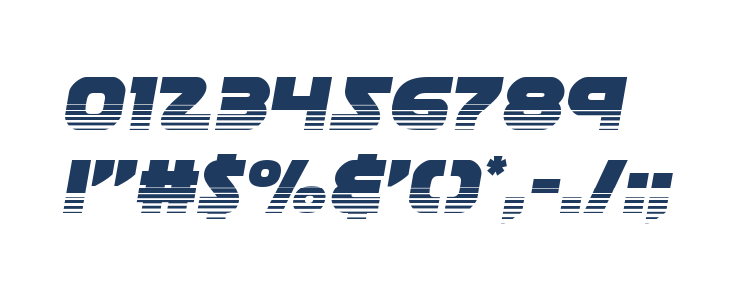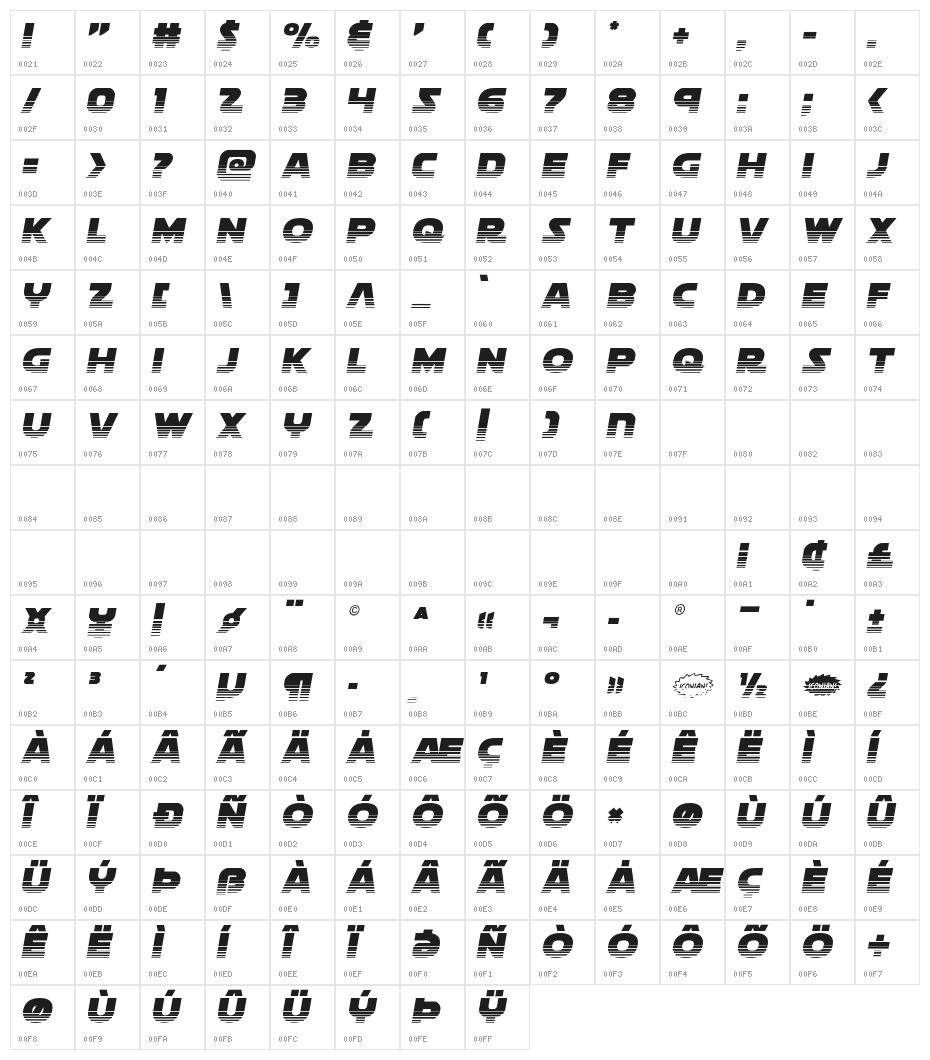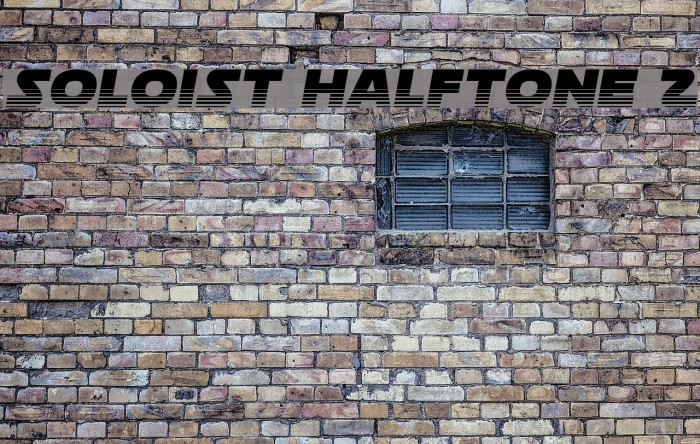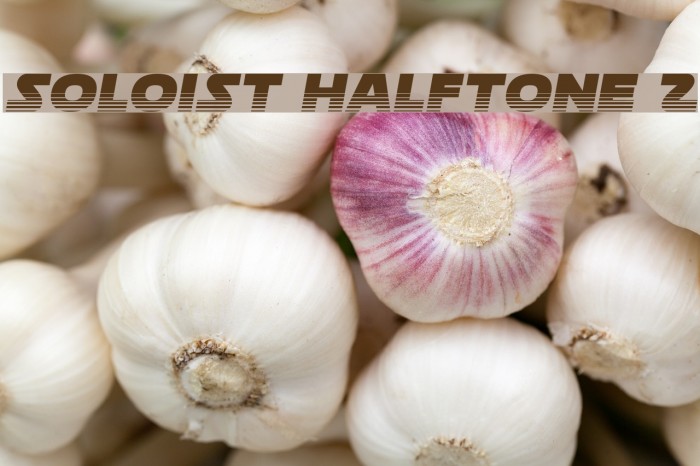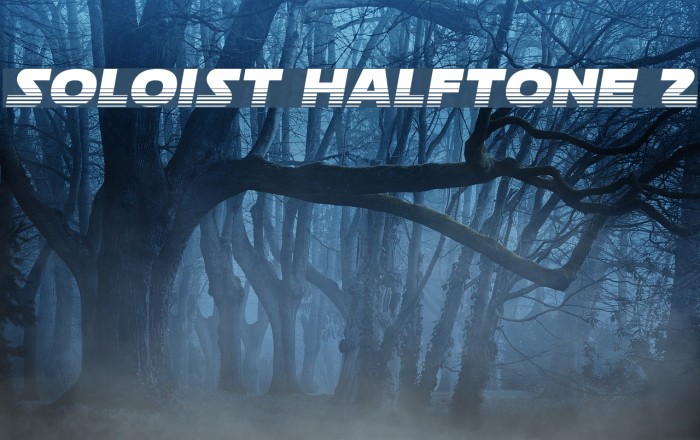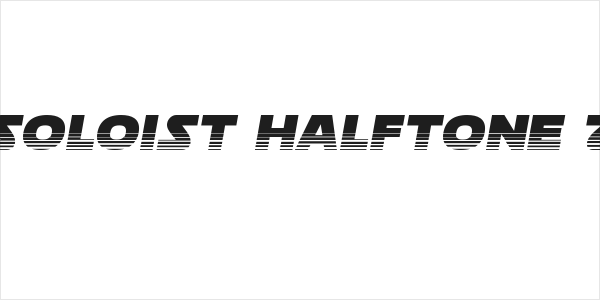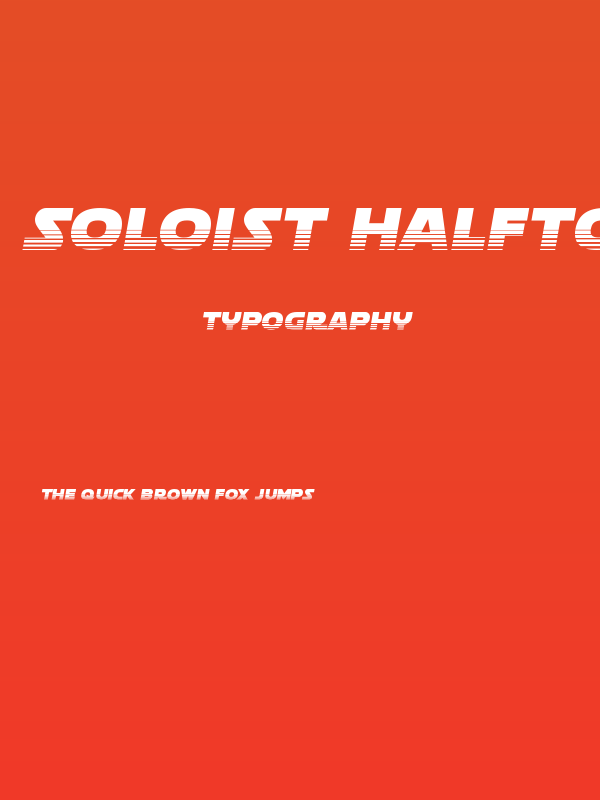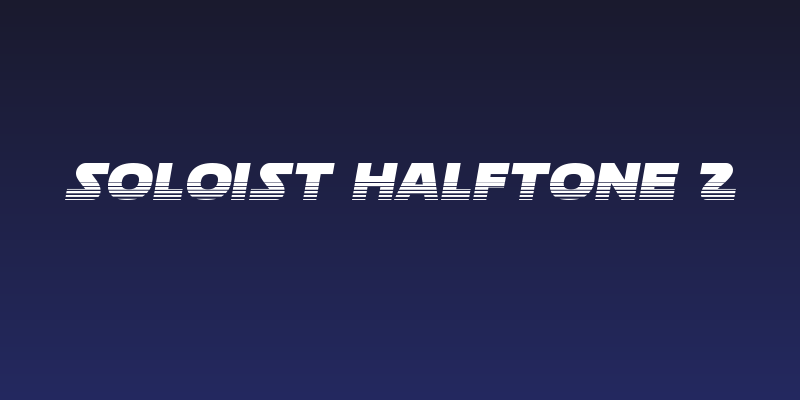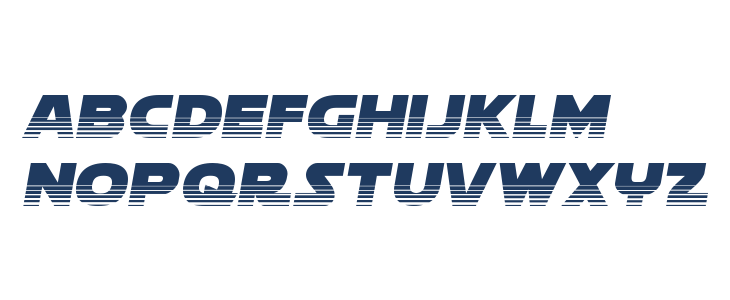
Soloist Halftone 2 Font
Soloist Halftone 2 Description
This font features a bold and dynamic style with a distinctive halftone effect that gives it a modern and edgy appearance. The characters are designed with a strong emphasis on horizontal lines, creating a sense of movement and speed. The uppercase letters are particularly striking, with their thick strokes and unique patterning that adds depth and texture. The numbers and special characters maintain this cohesive look, making it suitable for projects that require a bold and attention-grabbing typeface. The font's design is ideal for use in digital media, posters, and branding materials where a contemporary and impactful aesthetic is desired.